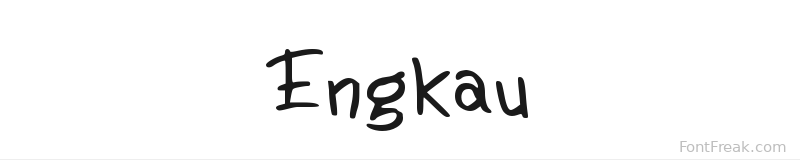
Engkau
About Engkau
Engkau, designed by Wahyu Eka Prasetya, is a captivating handwritten font that blends elegance with a touch of whimsy. This freeware typeface showcases a unique script style characterized by its flowing, organic strokes that exude a friendly and approachable vibe. The font features a moderate stroke weight, with gentle variations that add character without overwhelming the viewer. The charming, slightly irregular baseline and playful curves create an inviting feel that is perfect for various applications.
The Engkau font is particularly well-suited for wedding invitations, where its romantic aesthetic can convey love and warmth. It also shines in the context of restaurant menus, adding a personal touch that can enhance the dining experience. Graphic designers will find it ideal for creating eye-catching posters or promotional materials, as the font stands out while maintaining readability. Additionally, content creators can utilize Engkau in social media graphics or blog headers, where its unique style can help capture the audience's attention.
Targeting graphic designers, small business owners, and content creators, Engkau provides an ideal solution for those looking to add a distinctive flair to their projects without the constraints of licensing fees. The font’s versatility allows it to adapt seamlessly to both print and digital mediums, making it a valuable addition to any creative toolkit.
What sets the Engkau font apart is its harmonious blend of artistry and functionality. Its enchanting design not only captures the essence of handwritten typography but also ensures clarity across various mediums. The Engkau font free download option makes it easily accessible for anyone looking to elevate their design work with a touch of creativity and charm.